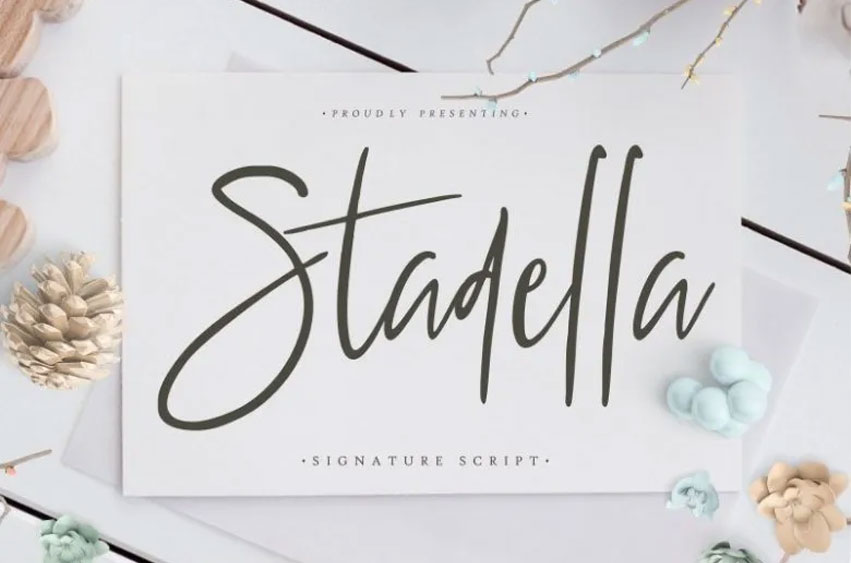
Stadella Font is a script font that has hand drawn stroke, which gives it a great application in the area of personal branding and other types of creative projects.
Stadella Signature Script is ideal for branding tasks, logo designs, wedding-related works, social media content, advertising, product packaging, products’ designing and labeling, photography, watermarking, invitations and cards, stationery, and other projects that require elegance.